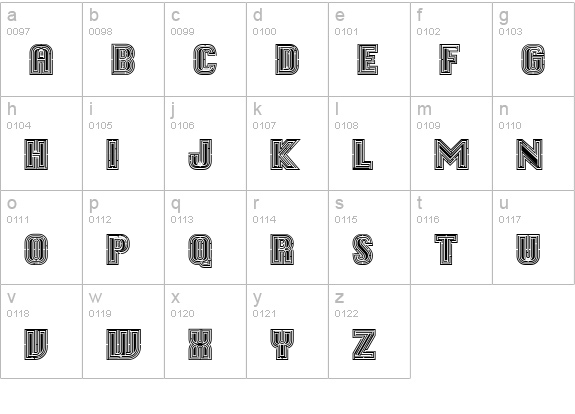
Lab Rat font is a quirky and playful typeface that adds a touch of whimsy to any design project. With its irregular strokes and unique character shapes, this font is perfect for creating eye-catching headings, logos, and branding materials. The Lab Rat font is not only fun and unconventional, but it is also versatile enough to be used in a variety of design applications. Best of all, Lab Rat font is available for free download at FontsMarket.com. This means you can easily add this charming font to your collection without any cost. Whether you're a graphic designer looking for a fresh new font or a hobbyist looking to spice up your creative projects, Lab Rat font is a fantastic choice that won't break the bank. Download it today and let your creativity run wild with this delightful and free typeface.